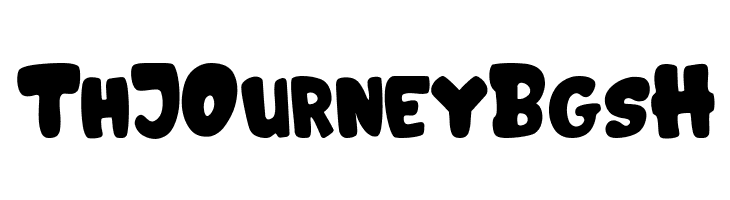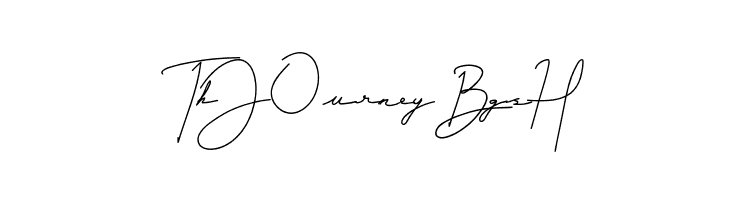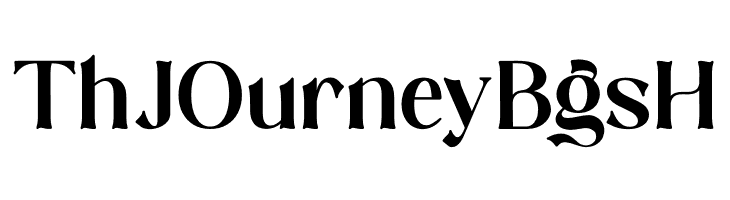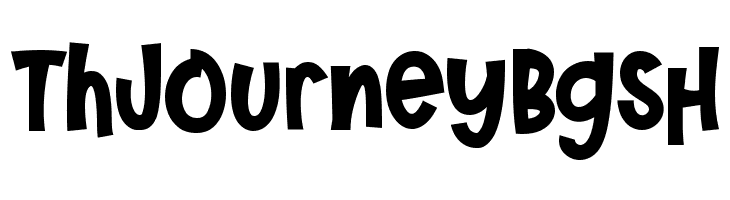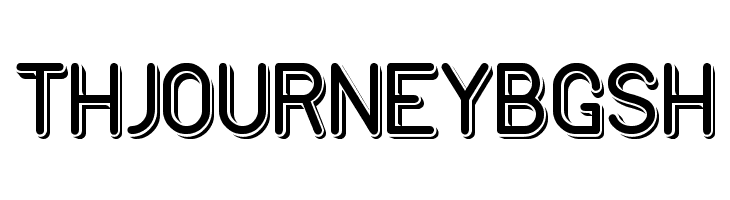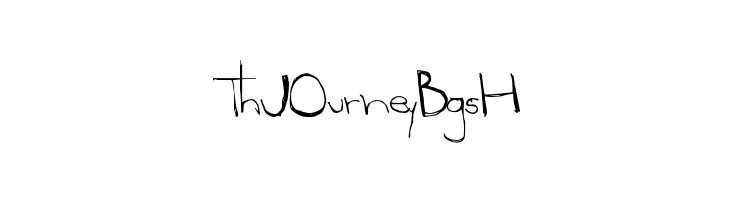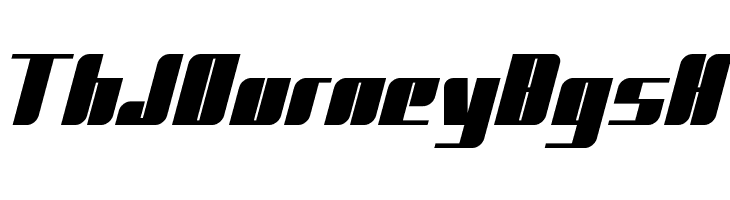
• Garden Flower
( Fonts by Dm Letter Studio )
Playful and bold decorative font with hand-drawn style.
• Gastro Intestinal Confl [Demo]
A playful, hand-drawn font with irregular strokes and a whimsical style.
• Gastro Intestinal Confluent
• Gastroe Demo
A modern, geometric font with a clean and versatile design.
• GatewayDrug
A playful, hand-drawn font with a sketch-like, artistic appearance.
• GEDEBOOG
( Fonts by Fachran Heit )
A bold, playful font with rounded edges and a whimsical style.
• Gellattik Janggan
A fluid and artistic handwritten font with expressive strokes.
• GENERATION
A bold, modern font with a double-line effect and geometric structure.
• GENERATION
A bold, outlined font with a modern, geometric style.
• Gent